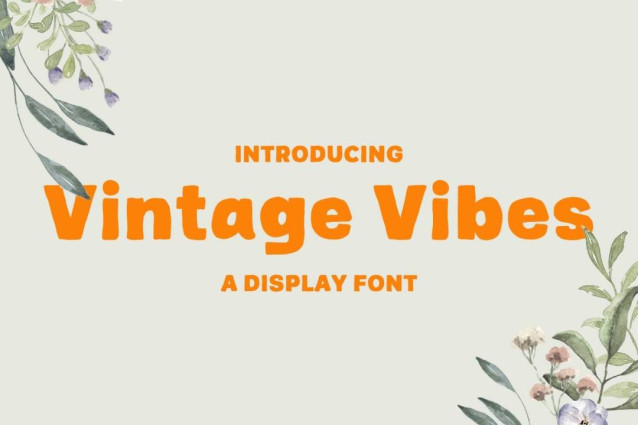
Vintage Vibes Font
Vintage Vibes Font is a simple and modern display font suitable for quotes, logos, headings, titles, and many more. Use it on any of your creative projects, and your designs will become outstanding!